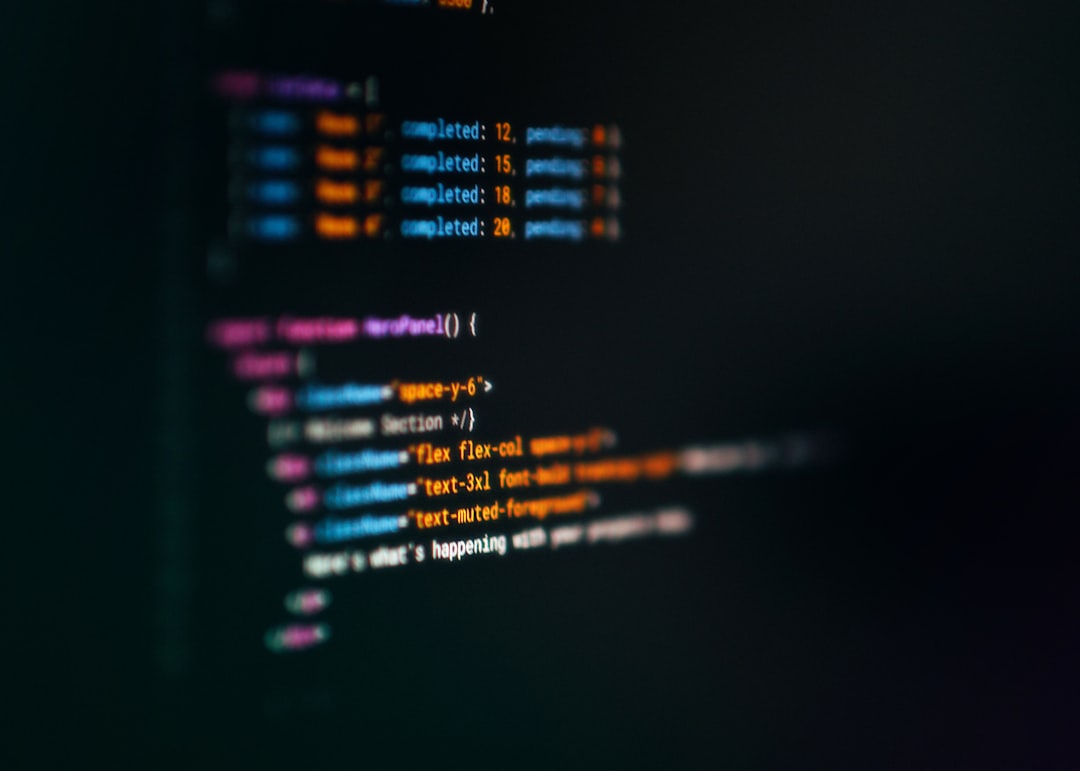
Best Programming Fonts 2026: 14 Coding Typefaces Developers Are Using Now
The font you stare at for eight hours a day matters more than almost any other tool choice you make as a developer. A good programming font reduces eye strain, makes bugs visible at a glance, and stops the small typographic annoyances — confusing zero versus O, missed semicolons, ambiguous brackets — that quietly slow you down. The category has matured dramatically in the last few years, and 2026 has the strongest lineup of monospaced typefaces designed specifically for code that the discipline has ever had.
This guide covers the 14 best programming fonts of 2026, sorted roughly by current popularity among working developers, with practical notes on ligatures, character distinguishability, terminal compatibility, and the use cases where each shines. Every font listed is in active use by professional engineering teams today, not curated from a 2018 listicle. Free options are flagged clearly.
What Makes a Programming Font Actually Good in 2026?
Before the picks, a quick rundown on the criteria. Every font in this list passes most of these tests; few pass all.
- Unambiguous character distinction — 0 vs O, 1 vs l vs I, 5 vs S, 8 vs B, and punctuation pairs like : vs ; vs , should be instantly distinguishable at editor sizes (12–16px)
- Generous x-height — keeps lowercase letters readable at small sizes; almost every good 2026 coding font has tall x-heights
- Even rhythm and width — monospaced typefaces succeed or fail on how natural they feel when reading dense text; the best ones don’t feel monospaced after a few hours
- Ligature support (optional but increasingly expected) — combinations like
=>,!==,<=,->rendered as single visual glyphs. Excellent for some languages (JavaScript, Rust, Haskell), distracting for others (C, Go) - Powerline / Nerd Font compatibility — supports the symbol glyphs needed for prompt customizations, status lines, and file-tree icons
- Italic that’s actually different — true italics, not just slanted romans, help comments and keywords stand visually distinct
- Performance in terminals — monospaced fonts with hinting bugs can render badly in WezTerm, Alacritty, Windows Terminal, or iTerm2. The best 2026 fonts test well across all major terminals
1. JetBrains Mono (Free)
JetBrains Mono remains the default recommendation for most developers in 2026, and for good reason. Designed by JetBrains specifically for use in their IDEs but released free and open source, it nails the fundamentals: distinct character forms, an excellent ligature set, multiple weights, a tall x-height that makes 13–14px sizes comfortable, and rock-solid rendering across editors and terminals.
The italic is a particular strength — it’s a true italic with subtle calligraphic touches that make commented code visually distinct without being jarring. Ligatures are well-considered (you can turn them off if you don’t want them). Languages tested well: TypeScript, Rust, Python, Go, Java, Kotlin (obviously), and shell scripting.
Best for: The safe, excellent default. If you don’t have a strong preference, install this.
2. Geist Mono (Free)
Geist Mono is Vercel’s open-source monospaced typeface, released in 2023 and aggressively iterated through 2024 and 2025. The 2026 version is one of the most refined free coding fonts available. Where JetBrains Mono is a workhorse, Geist Mono is more opinionated — slightly more compressed proportions, sharper terminals, and a more contemporary aesthetic that pairs well with modern design tools.
It ships with a strong ligature set, multiple weights, and a true italic. Character distinction is excellent: zero has a dot, l has a small tail, the various brackets are clearly differentiated. Particularly popular among front-end developers and designers who code.
Best for: Developers who want a fresh, design-conscious feel without sacrificing readability.
Ligatures: Yes.
3. Berkeley Mono (Paid — $75)
If you ask working developers what the most-coveted paid programming font is in 2026, the answer most commonly is Berkeley Mono from US Graphics Company. It’s the font that programmer Twitter has been quietly recommending for two years. The aesthetic is technical, slightly utilitarian, with squared terminals and an honest mechanical feel — like a well-designed terminal font that grew up.
It comes with two flavors (Berkeley Mono and Berkeley Mono Variable), excellent Powerline and Nerd Font variants, and the kind of polish that makes you notice when you switch away. The italic is exceptional. Worth the $75 if you spend hours in a code editor daily.
- Mixing two fonts across editor + terminal. Constant visual context-switching slows you down. Pick one font and use it everywhere.